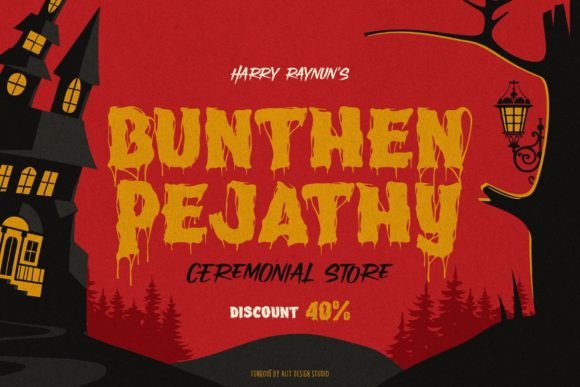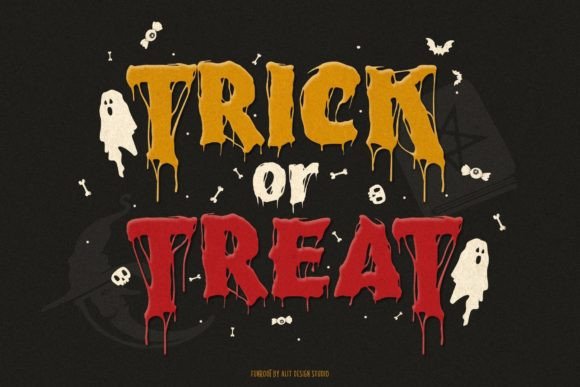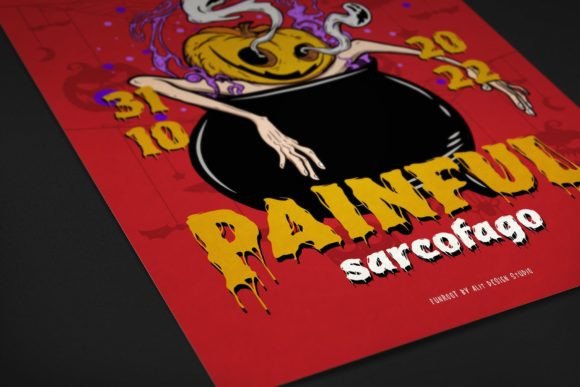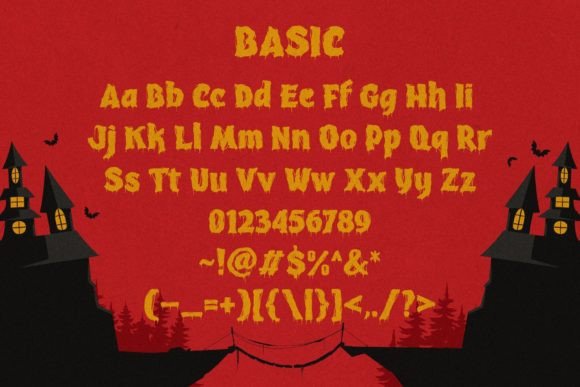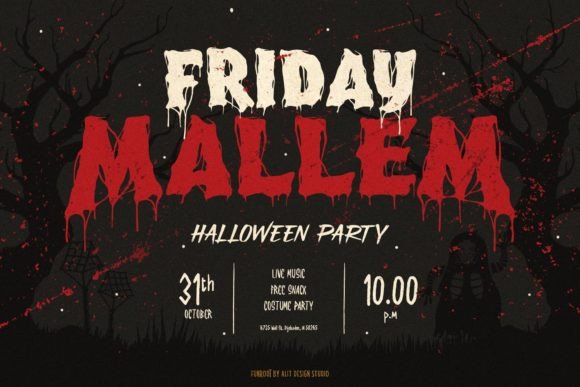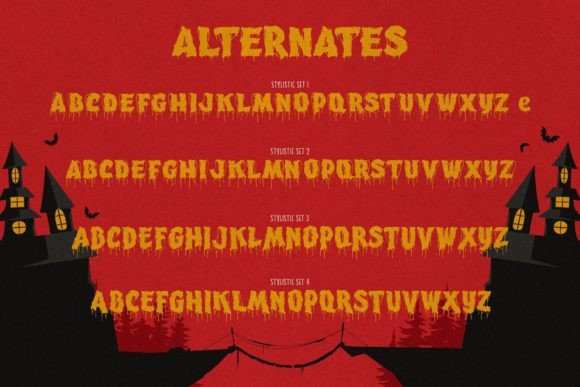
Unleash the Spookiness: Discover the Funroot Font
Are you ready to add a dash of spookiness to your designs? Look no further than the Funroot Font, a cool and mysterious display font that’s perfect for all your Halloween designs. This font is not only visually striking but also packed with features that make it easy to use and customize.
The Perfect Blend of Spooky and Fun
Funroot Font is a masterful blend of spooky and fun, making it the ideal choice for Halloween-themed designs. The font’s unique and quirky style is sure to capture the attention of your audience and leave a lasting impression. Whether you’re designing invitations, posters, or social media graphics, Funroot Font is the perfect choice to add a touch of whimsy and spookiness.
One of the standout features of Funroot Font is its PUA (Private Use Area) encoding. This means that you can access all the glyphs and ligatures with ease, giving you complete creative control over your designs. With PUA encoding, you can effortlessly insert special characters, symbols, and swashes into your text, taking your designs to the next level.
Funroot Font is incredibly versatile, making it suitable for a wide range of design projects. Here are just a few ideas to get you started:
• Halloween-themed designs: invitations, posters, social media graphics, and more
• Party decorations: banners, garlands, and other festive decorations
• Digital crafts: printable art, SVG files, and other digital creations
• Branding and packaging: add a touch of spookiness to your brand’s identity
Why Choose Funroot Font?
So, why should you choose Funroot Font for your next design project? Here are just a few reasons:
• Unique style: Funroot Font has a one-of-a-kind style that’s sure to stand out
• Ease of use: PUA encoding makes it easy to access all glyphs and ligatures
• Versatility: suitable for a wide range of design projects and applications
• High-quality design: professionally designed with attention to detail
Tips and Tricks for Using Funroot Font
To get the most out of Funroot Font, here are a few tips and tricks to keep in mind:
• Experiment with different sizes: Funroot Font looks great in a variety of sizes, from small captions to large headlines
• Play with color: try pairing Funroot Font with bold, bright colors to really make it pop
• Mix and match: combine Funroot Font with other fonts to create a unique and eye-catching design